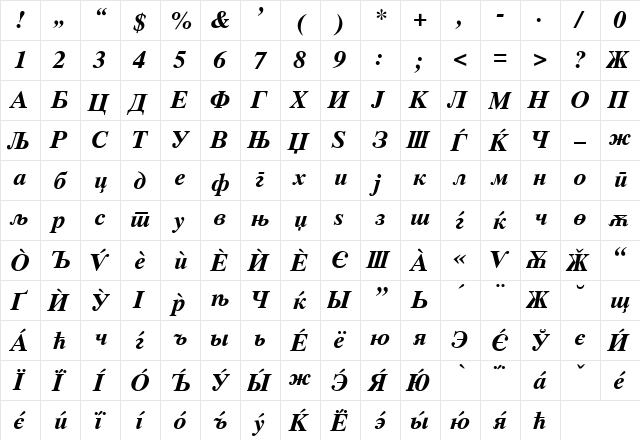
Pulstajms7 Bold Italic
Design Context for Pulstajms7 Typeface
Pulstajms7 is a composed and adaptable typeface that performs quietly and consistently across a wide range of design contexts. The dynamic lean of this cut emphasises speed and emphasis in any layout. The heavy weight commands attention and anchors typographic hierarchies.